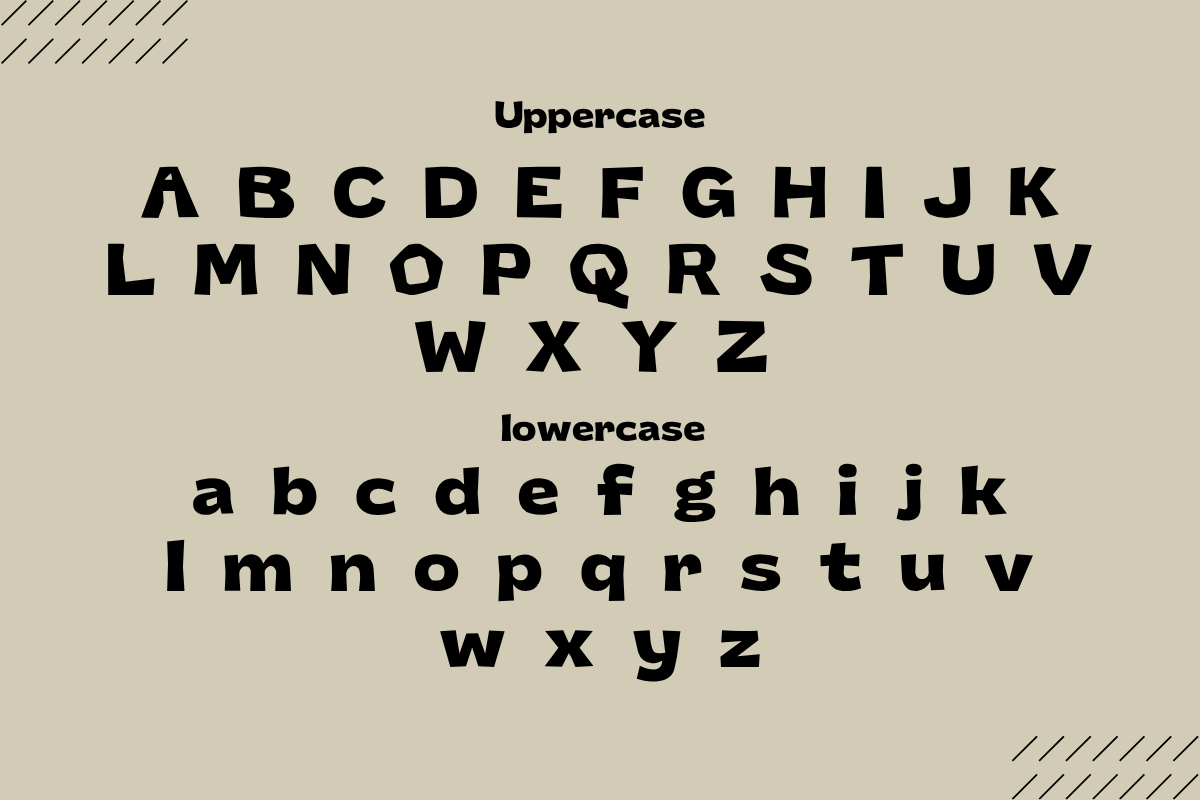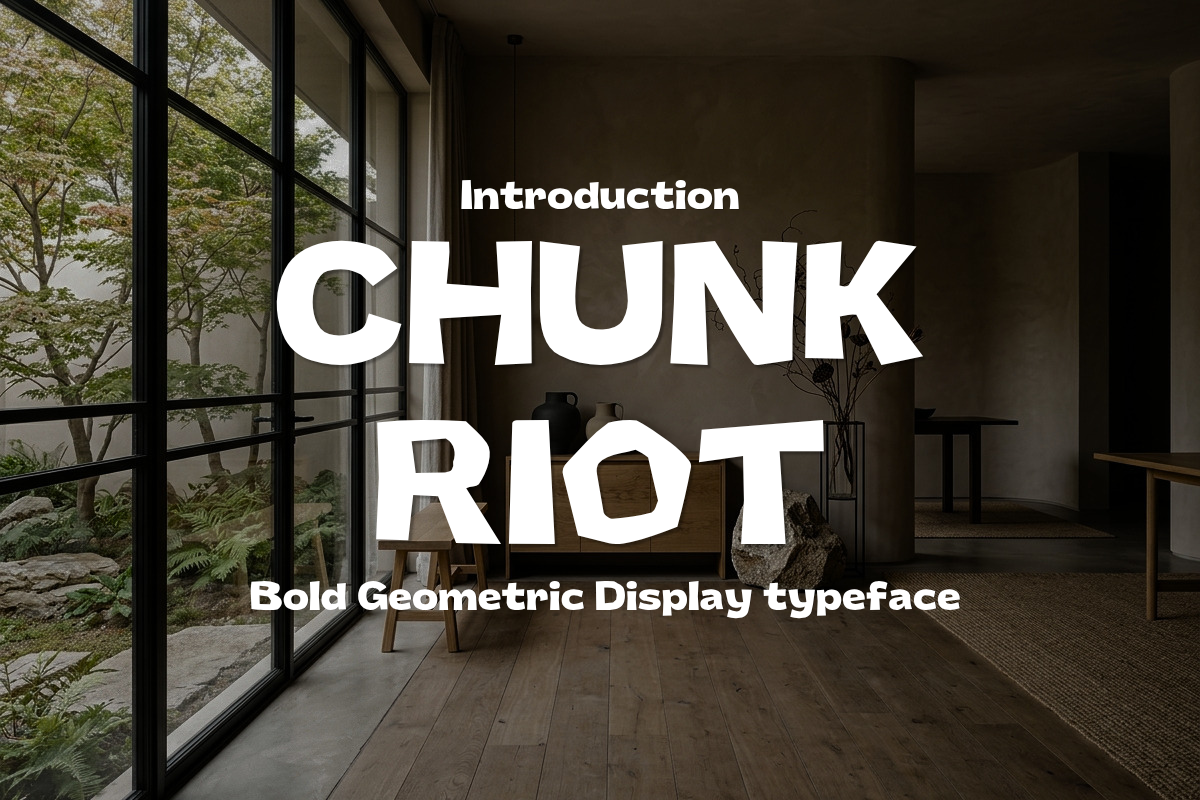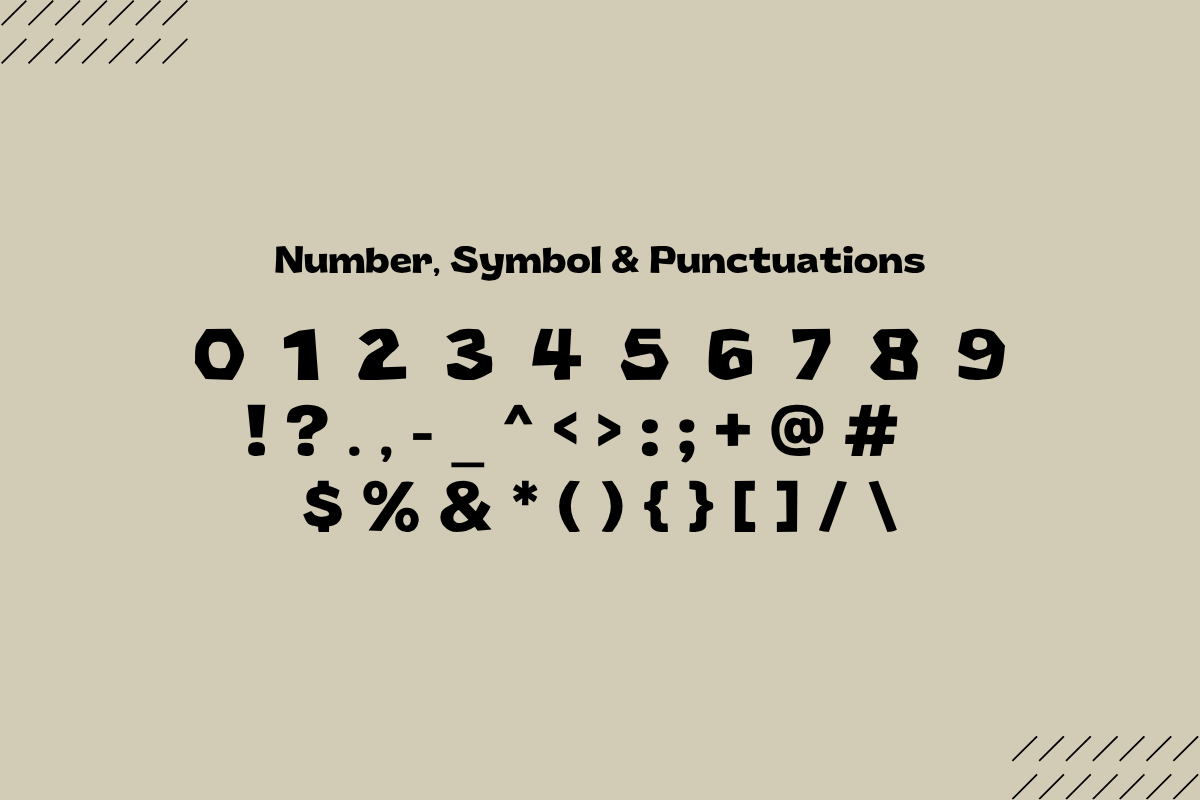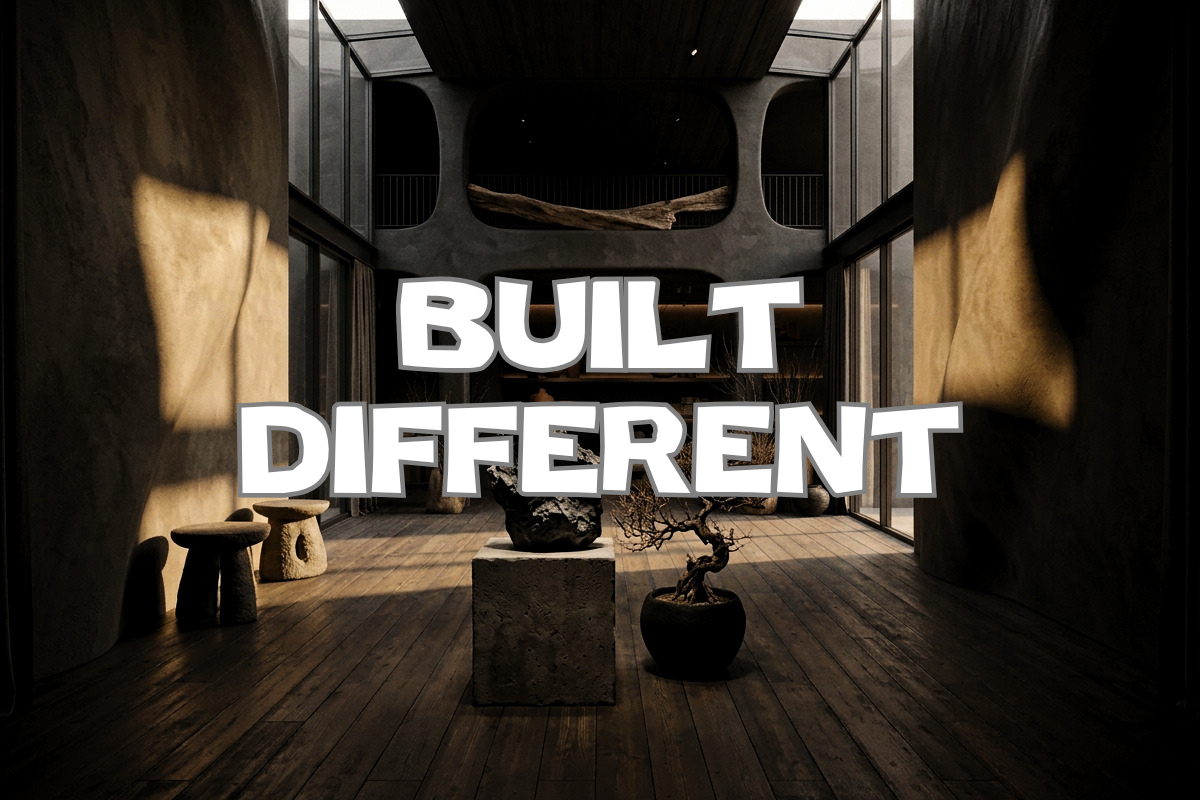
ChunkRiot-Geometric Display Typeface
ChunkRiot is a bold geometric display typeface designed to bring a powerful, contemporary look to your creative projects. Its chunky letterforms, irregular geometric shapes, and strong visual presence make it perfect for designs that need an eye-catching headline.
Inspired by neo-brutalist design, modern streetwear, urban graphics, and experimental typography, ChunkRiot works especially well at large sizes where its unique shapes can really stand out.
Perfect for T-shirts, hoodies, posters, logos, branding, album artwork, packaging, social media graphics, advertising, and editorial designs.
Uppercase A–Z
Lowercase a–z
Numbers 0–9
Punctuation & Symbols
Bold geometric letterforms
Chunky experimental shapes
Modern display style
Strong visual impact
Great for large-scale typography